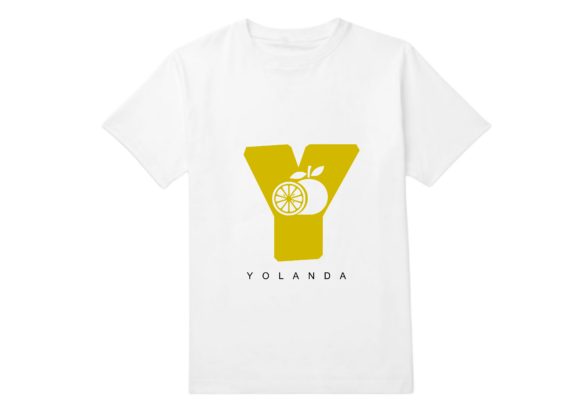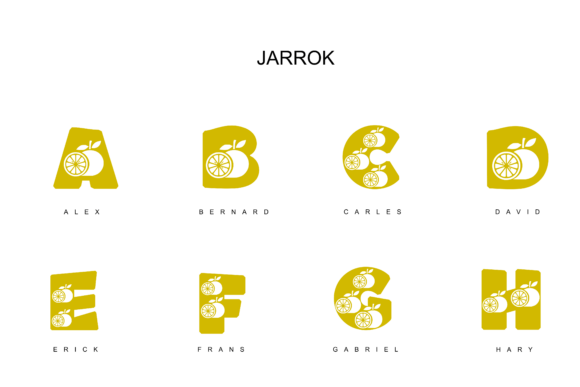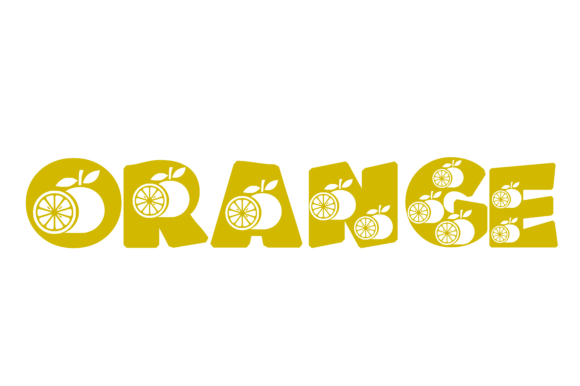
Introduction to Jarrok Font
Do you remember the excitement of creating your first DIY craft project as a kid? The joy of choosing vibrant colors, the thrill of cutting out shapes, and the pride of seeing your artwork come to life? That same sense of creativity and playfulness can be infused into your designs with the Jarrok Font – a delightful, fruit-themed display font that’s sure to add a pop of color and energy to your projects.
Whether you’re working on a children’s activity sheet, designing a juice brand, or creating educational resources, the Jarrok Font is an ideal choice. Its high-quality, transparent background design makes it perfect for overlaying on images, while its free download availability makes it an accessible design resource for creatives of all levels. With its robust, effervescent style, the Jarrok Font is a valuable addition to any designer’s toolkit.
- Unique characteristics include a modern, sleek design and a wide range of glyphs, making it perfect for creative projects.
Honest Review: Jarrok Font
I recently stumbled upon the Jarrok Font and I have to say, I’m quite impressed with its design. This free download has quickly become a valuable design resource in my creative project toolbox.
- High-quality typography: The font’s design is crisp and clear, making it perfect for headings and titles.
- Not suitable for body text: The font is a bit too bold and attention-grabbing for body text, so I tend to reserve it for headings and titles.
- Not as versatile as other fonts: While the Jarrok Font is great for creative projects, it may not be the best choice for more formal or professional designs.
Overall, I’m really enjoying the Jarrok Font and I think it’s a great addition to any designer’s toolkit. Its high quality and customizability make it a valuable resource for creative projects, and the transparent background is a nice touch.
Tips for Getting the Most Out of Jarrok Font
Use the Jarrok Font in conjunction with other design elements to create a cohesive and visually appealing design. Experiment with different font sizes and styles to add depth and interest to your project.
The Jarrok Font is perfect for creative projects that require a high-quality, professional font. Some common use cases include:
– Brochures and flyers
– Business cards and letterheads
– Social media graphics and advertisements
– Infographics and presentations